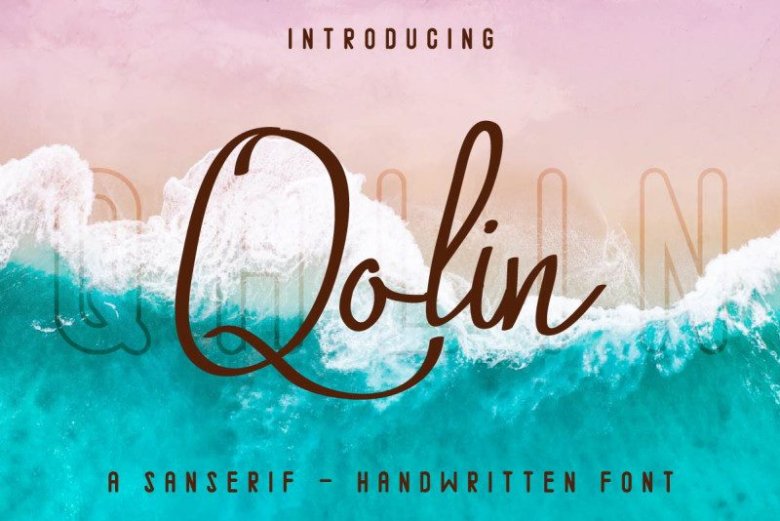
Qalin Font Duo
Hi Everyone! Introducing our newest font : Qalin ! This is a combination font : Sans and Handwritting script. It has a new modern script handwriting feminine signature style font. with exclusive, elegant, natural and stylish glyph. Will be perfect for branding, logo, stationery, business card, signage, flyer, brochure etc.
There are many industries that is suitable for this font : construction, real estate, agency, law firm, salon, hair stylish, organizer, consultant, dentist, designer, chef, etc